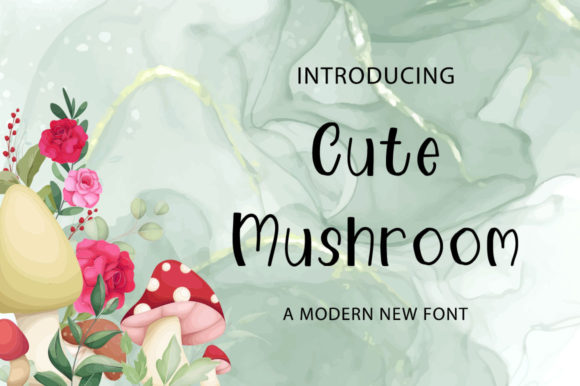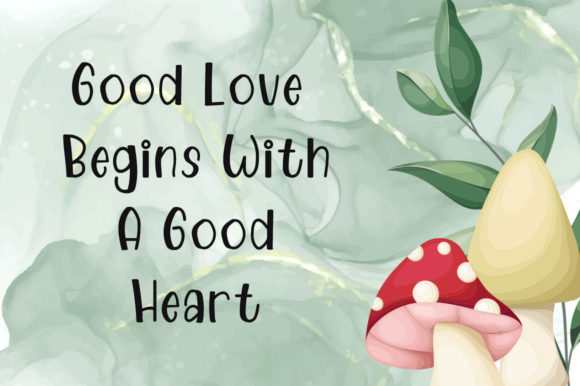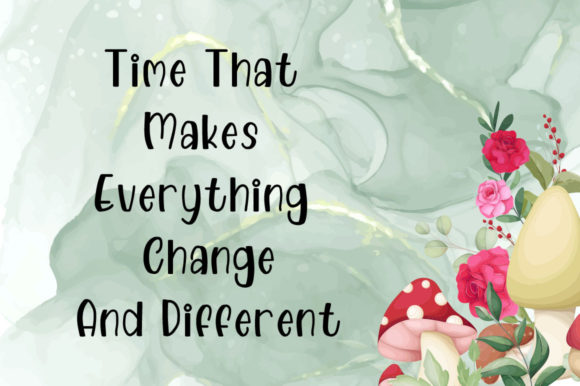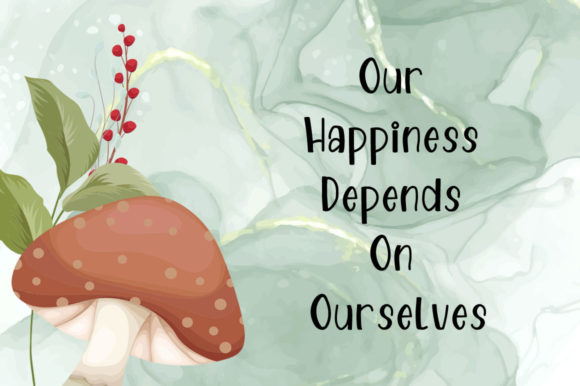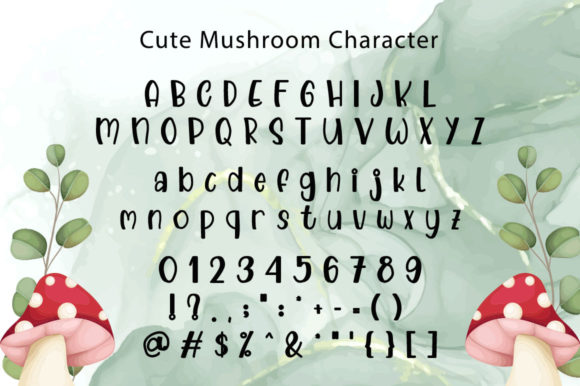
Cute Mushroom Font
About Cute Mushroom Font
**Cute Mushroom** presents itself as a delightful and casual handwritten font, designed to stand out in any context. Whether you’re searching for fonts to enhance your Instagram presence or calligraphy scripts for DIY projects, Cute Mushroom emerges as a font that transforms every creative idea into a true piece of art.
The cuteness and casual charm of Cute Mushroom make it a versatile choice for a variety of applications. From logos and headings to t-shirts, letterhead, signage, labels, news, posters, badges, and beyond, this font seamlessly integrates into diverse design contexts. Its ability to adapt to different applications makes it a go-to choice for various creative endeavors.
For Instagram posts, Cute Mushroom adds a playful and charming touch to your visuals. Its handwritten style contributes to a relaxed and friendly atmosphere, making it perfect for social media content that requires a personalized and approachable feel. The font becomes an essential element in turning your Instagram feed into a visually appealing showcase.
In DIY projects, Cute Mushroom becomes a valuable asset, enhancing the handmade and artisanal quality of your creations. Whether applied to labels, signage, or posters, the font’s cute and casual handwritten aesthetic adds character and uniqueness to each design. It becomes a true piece of art, showcasing creativity and individuality.
The broad range of applications, from logos to t-shirts and beyond, demonstrates Cute Mushroom’s versatility. Its adaptability ensures that it remains a standout choice for a variety of design projects, providing a consistent and engaging visual presence.
In essence, Cute Mushroom goes beyond being just a font; it becomes a design companion that effortlessly combines cuteness with casual charm. Embrace the playfulness and versatility that Cute Mushroom brings to your creative ideas, turning each project into a true piece of art that captivates and delights.